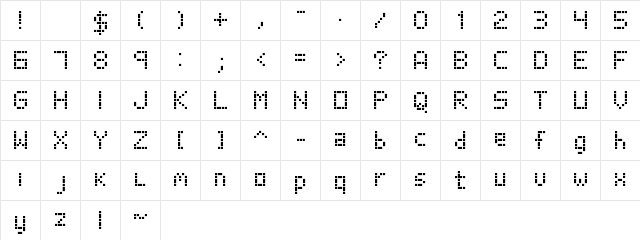
Poxel Font Regular
| Designer | victormtz |
Design Context for Poxel Font Typeface
Poxel Font takes a measured approach to typography — its balanced proportions and neutral character make it a reliable workhorse for both digital and print work.